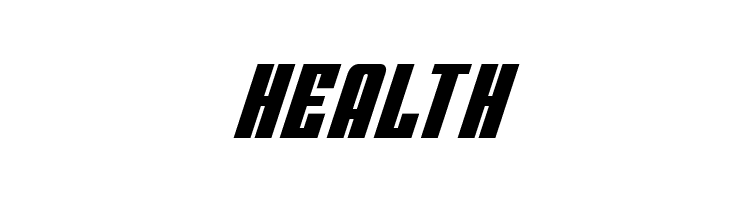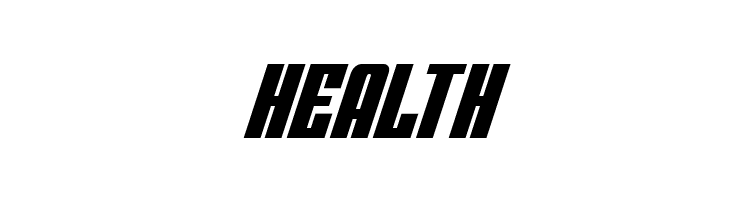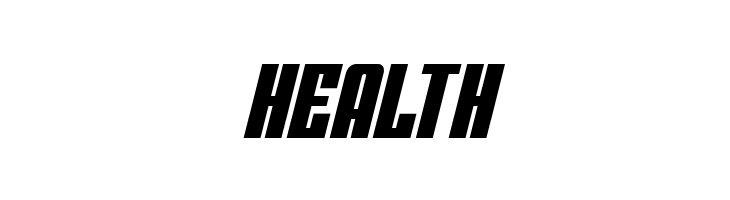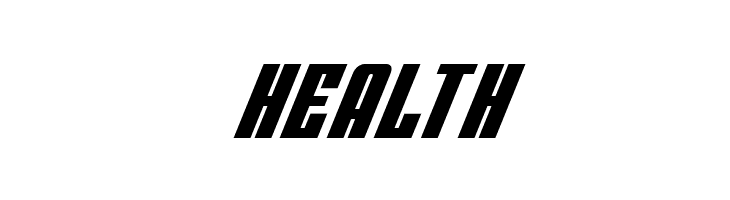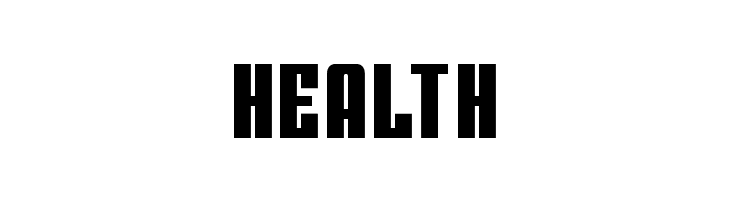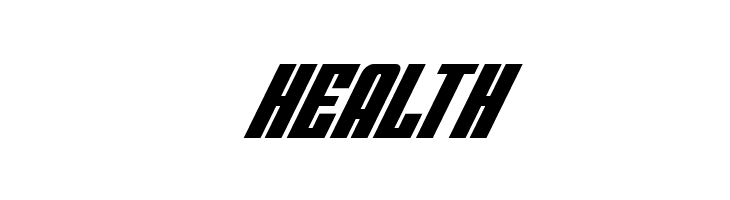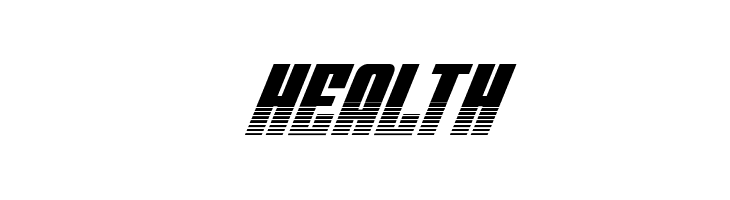
• Bandit & Snowman Semi-Italic
A bold, italicized font with a dynamic, geometric style.
• Bandit & Snowman Semi-Leftalic
A bold, left-slanted font with wide, angular characters.
• Bandit & Snowman Slight Italic
A bold, slightly italic font with dynamic, angular lines and high contrast.
• Bandit & Snowman Slight Left
A bold, dynamic font with sharp angles and a slightly condensed structure.
• Bandit & Snowman Spaced
A bold, blocky font with a modern, industrial style.
• Bandit & Snowman Spaced Italic
A bold, italicized font with dynamic, sharply angled characters.
• Bandit & Snowman Spaced SemiIt
A bold, angular font with a dynamic, slanted style.
• Bandit & Snowman Super Italic
A bold, italicized font with a dynamic and modern style.
• Bandit & Snowman Twotone
A bold, modern font with a unique two-tone striped effect.
• Bandit & Snowman Twotone Ital
A bold, italicized font with a two-tone gradient effect and tight spacing.